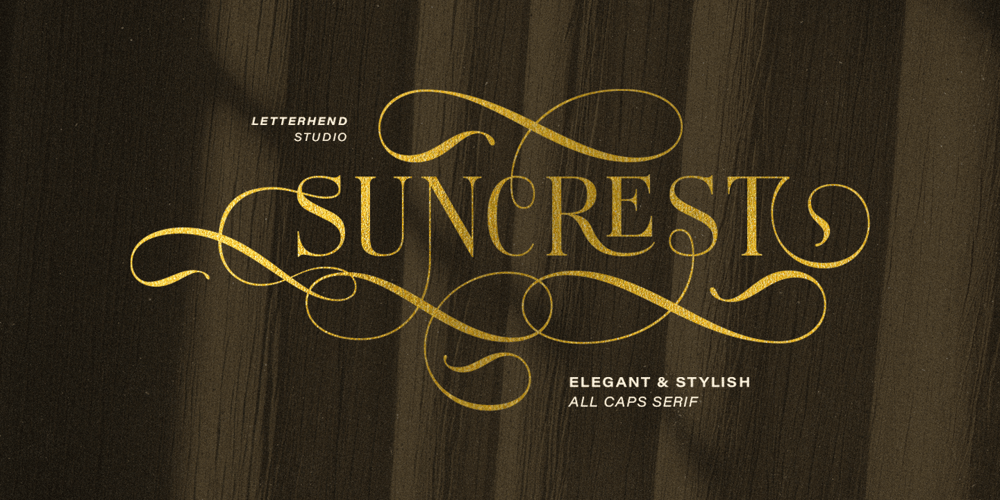
Suncrest
Suncrest font
Suncrest Font Family was designed by Hendry Juanda and published by Letterhend. Suncrest contains 1 styles and family package options. Suncrest is a all caps serif font that radiates elegance and stylish. It’s stylish alternates and delicate swashes make it the perfect choice for creating designs that demand a refined and chic look. From high-end branding to elegant wedding invitations, this font will captivate with its luxurious appeal.Features : Uppercase & lowercase Numbers and punctuation Alternates & Ligatures Multilingual Support PUA encoded